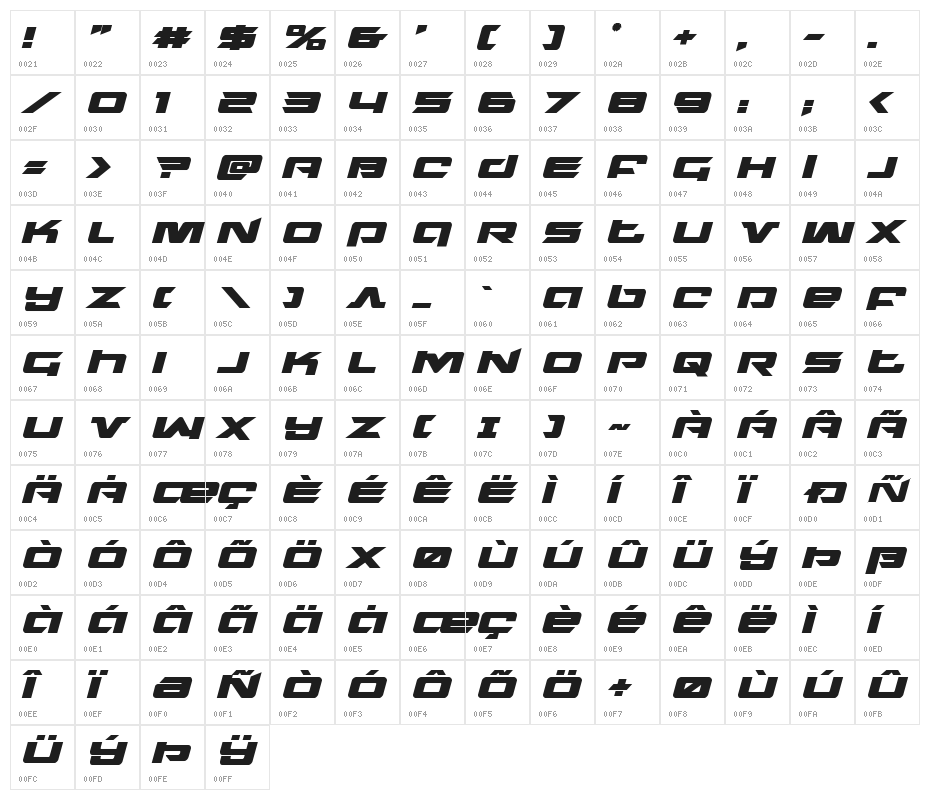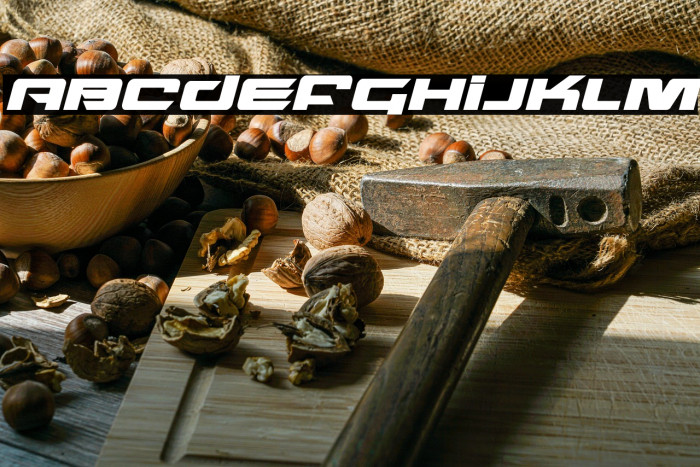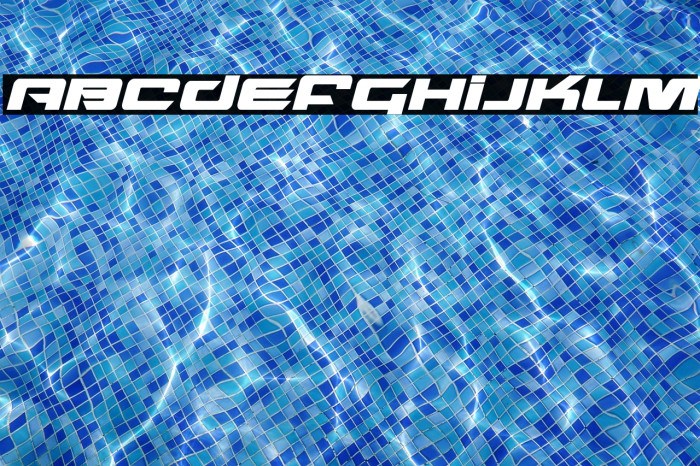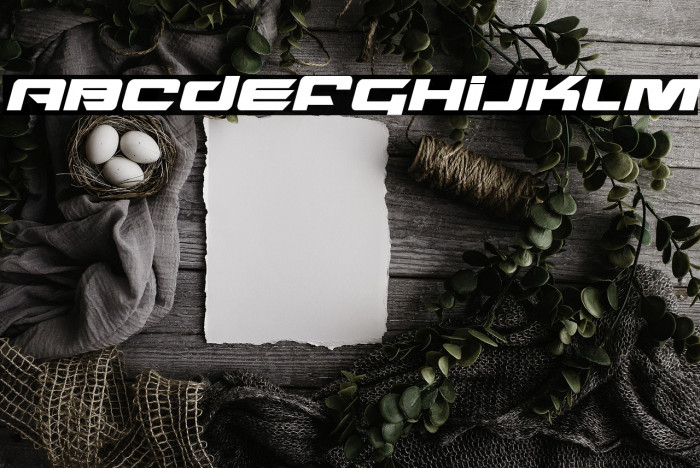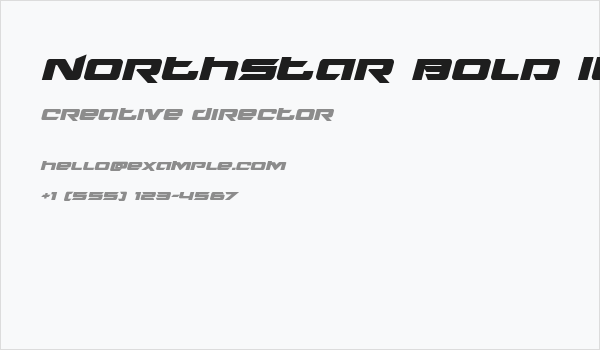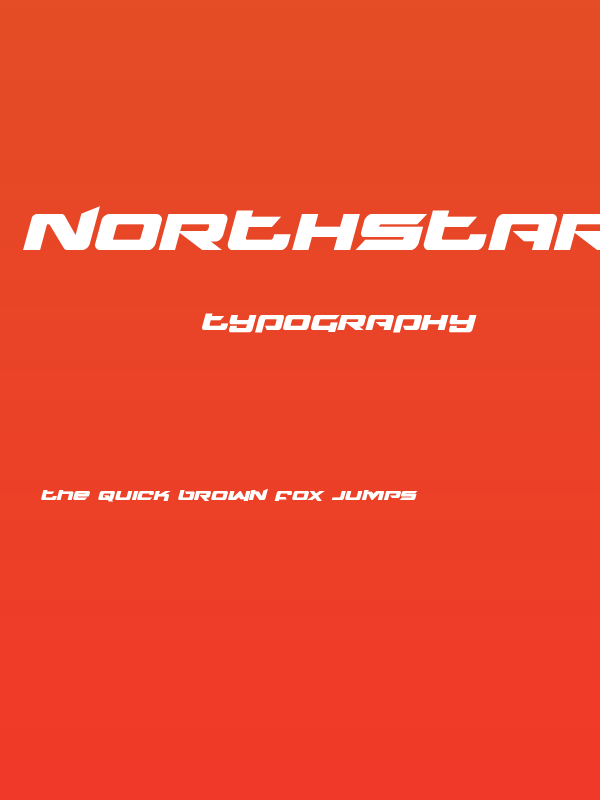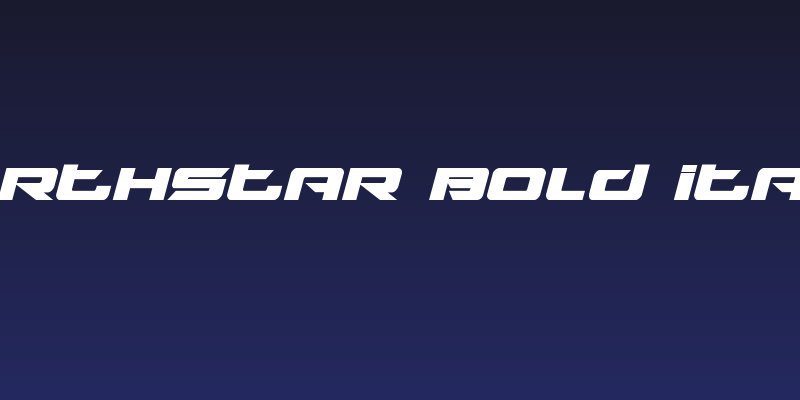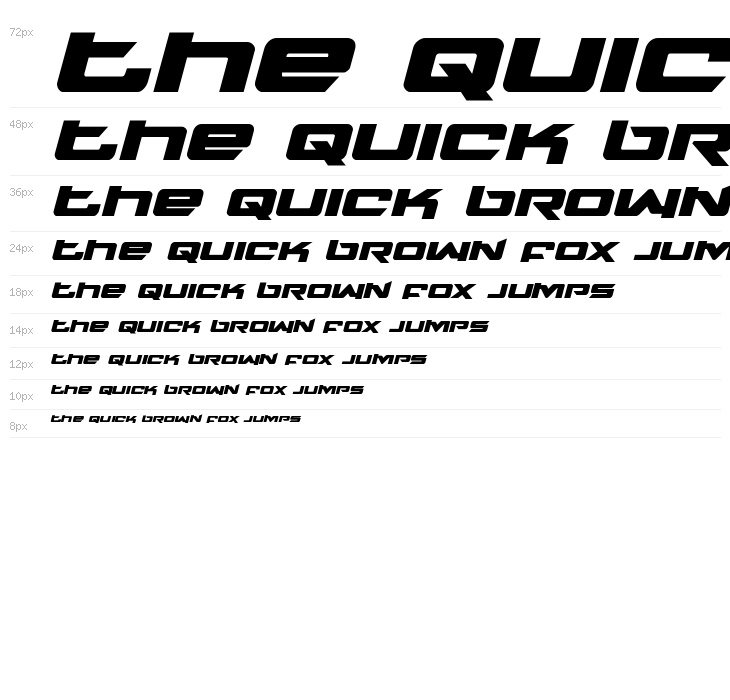
Northstar Bold Italic Font
Northstar Bold Italic Description
This font features a bold and italicized style with a futuristic and dynamic appearance. The characters are slanted, giving a sense of motion and speed. The strokes are thick and consistent, contributing to a strong visual impact. The design incorporates sharp angles and geometric shapes, making it ideal for modern and tech-oriented projects. The uppercase and lowercase letters maintain a uniform style, while the numerals and special characters complement the overall aesthetic. The font's boldness ensures high readability, even at smaller sizes.
Use CaseLogos, Headlines
Proposed ProjectsIdeal for technology branding, sports team logos, video game titles, and sci-fi themed designs.